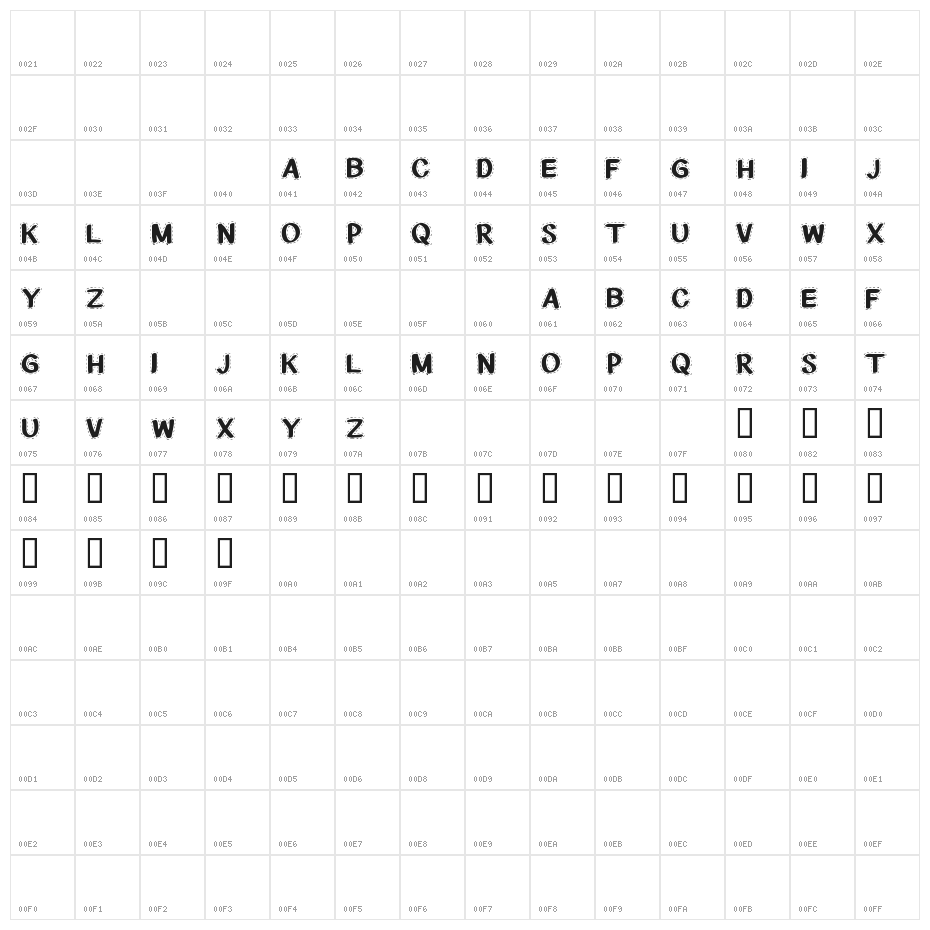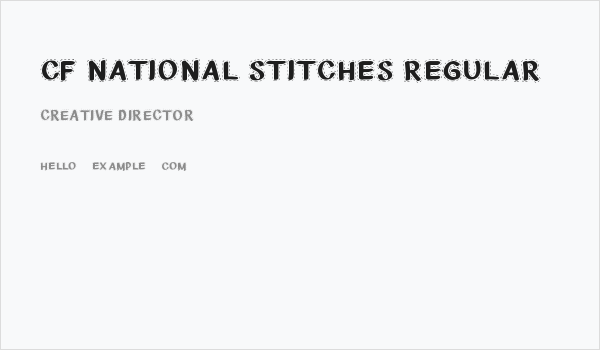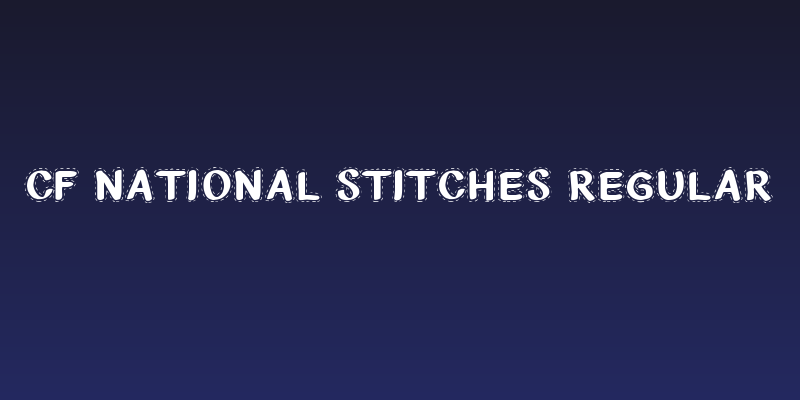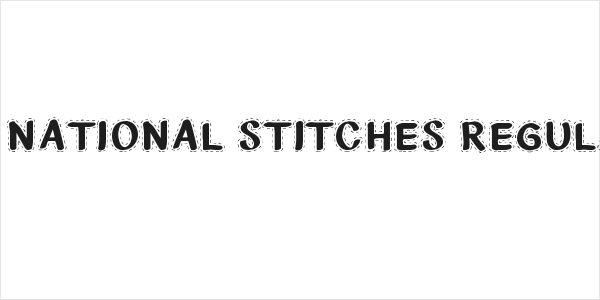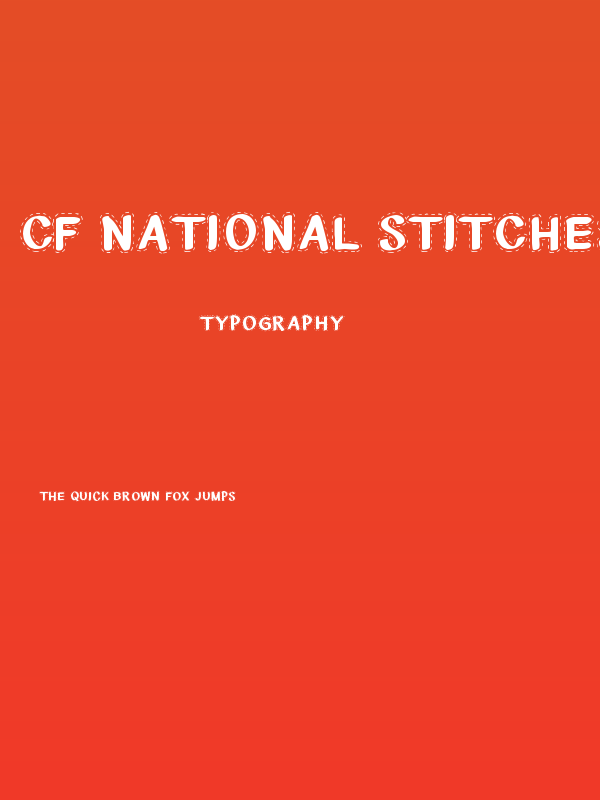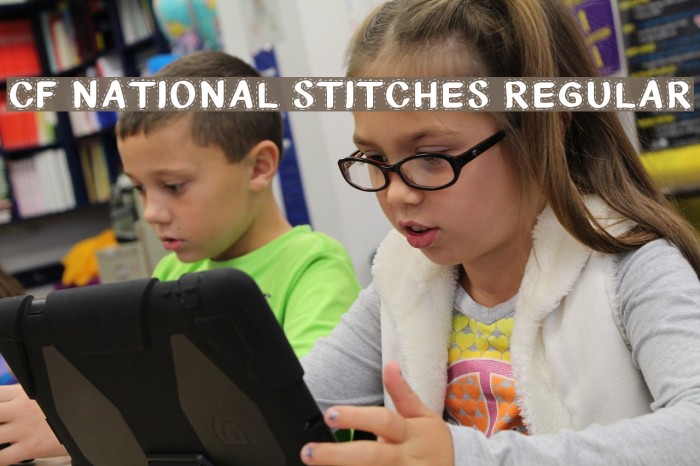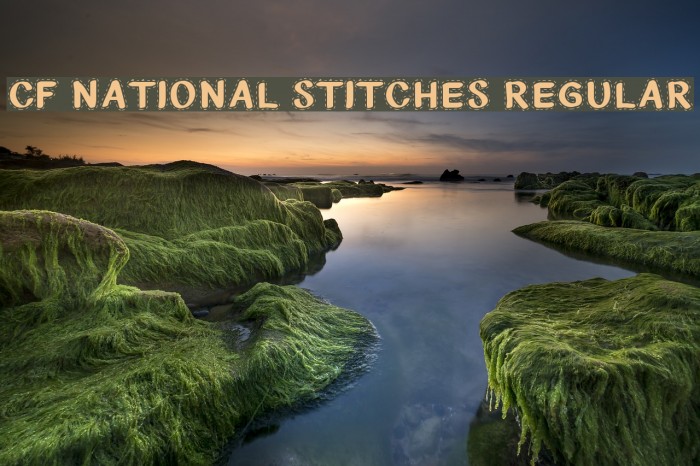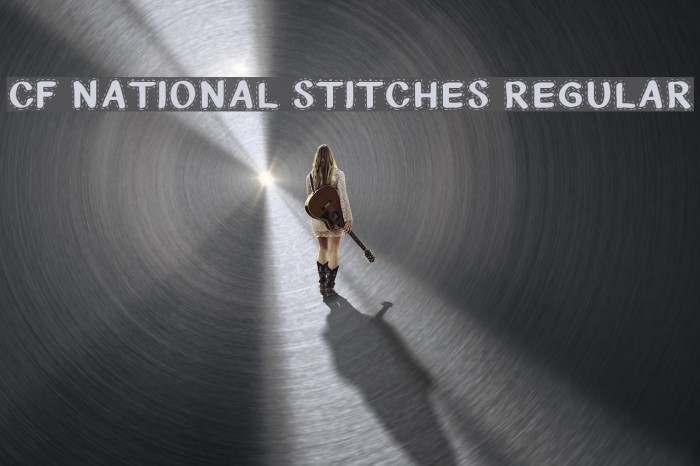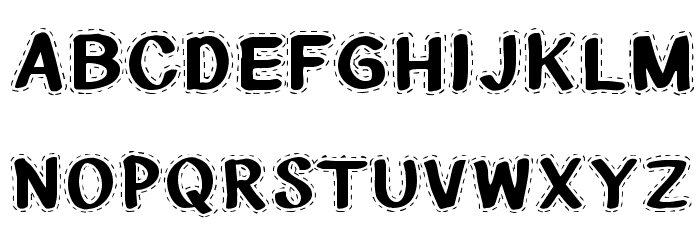
CF National Stitches Regular Font
CF National Stitches Regular Description
This font features a playful and decorative style, characterized by bold, uppercase letters with a stitched outline effect. The letters are evenly spaced, with a consistent width and a slightly rounded appearance, giving them a friendly and approachable look. The stitching detail adds a unique, handcrafted feel, making it ideal for creative projects. The font's boldness ensures readability, while the decorative elements provide a touch of whimsy and charm.
| Proposed Projects | Ideal for crafting projects, children's book covers, playful branding, and DIY-themed designs. |